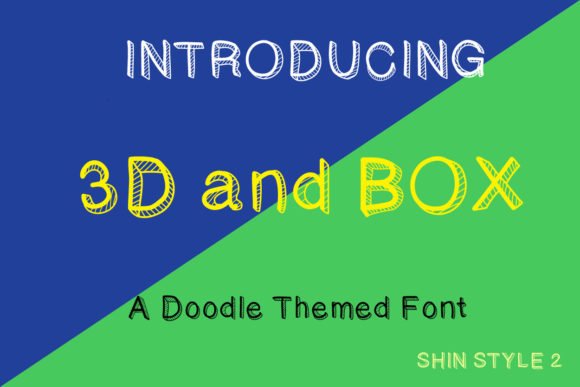
Unleashing the Power of Bold Typography: 3D and Box Font
Have you ever stared at a blank canvas, waiting for the perfect font to spark your creativity? That’s exactly what happened to me last week, and it led to the most amazing design project. I was brainstorming ideas for a children’s book cover, and the moment I typed out the title in 3D and Box Font, everything fell into place. The bold, thick letters jumped off the page, and I knew I had found the perfect match for my design.
For designers, 3D and Box Font is a game-changer. Its unique style is perfect for creating eye-catching titles, brand names, and quotes that demand attention. Whether you’re working on a cartoon, a children’s game, or a book cover, this font is sure to add a touch of beauty and whimsy to your design.
Key Features of 3D and Box Font
- Unique 3D Effect: The font features a unique 3D effect, giving it a distinctive and eye-catching appearance that can add visual interest to text-based designs.
- Box Shadow Effect: The font also includes a box shadow effect, which can be used to create a sense of depth and dimensionality in text-based designs.
- Highly Customizable: 3D and Box Font is highly customizable, allowing users to adjust font sizes, colors, and effects to suit their specific design needs.
Designer Review: 3D and Box Font
I recently had the chance to work with the 3D and Box Font, and I have to say, it’s an interesting choice for typography enthusiasts. Here are my thoughts:
- Unique aesthetic**: The font has a distinct 3D look that’s perfect for adding a touch of modernity to your designs.
- Customization options**: The font comes with various effects and styles that allow you to customize its look to suit your needs.
- Legibility**: Despite its 3D appearance, the font remains relatively legible, making it suitable for body text.
- Limited font sizes**: The font may not be ideal for very large or very small font sizes, as its 3D appearance can become distorted.
- Compatibility issues**: I experienced some compatibility issues with certain text editors and software.
Overall impression
The 3D and Box Font is a great choice for designers looking to add a unique touch to their designs. While it may have some limitations, its customization options and modern aesthetic make it a valuable addition to any designer’s toolkit. However, be mindful of its limitations when working with font sizes and compatibility issues.
3D and box font are commonly used in: Infographics, brochures, flyers, and presentations to add visual interest and depth to text. They are also used in logos and branding to create a unique and memorable visual identity.
To get the most out of 3D and box font, use them sparingly and in creative ways, such as combining them with other design elements, like images and shapes. Experiment with different font styles and sizes to create a